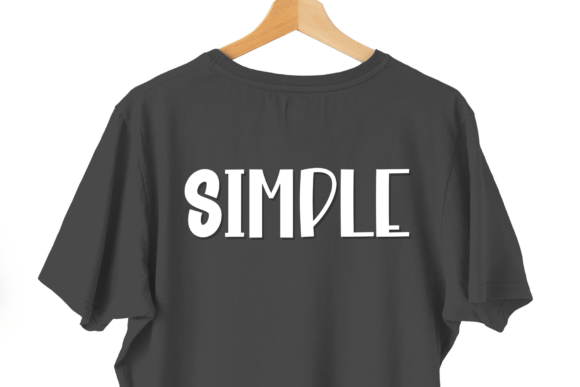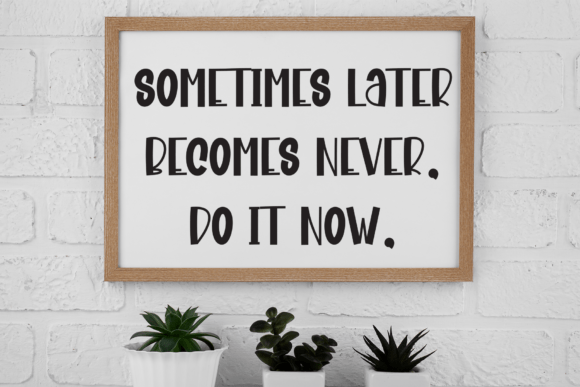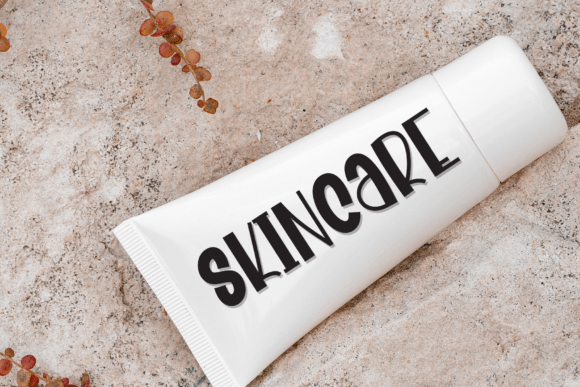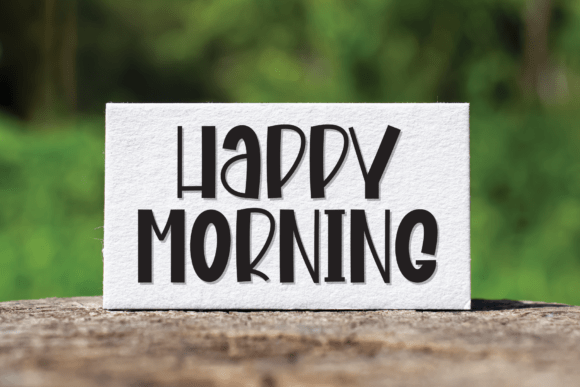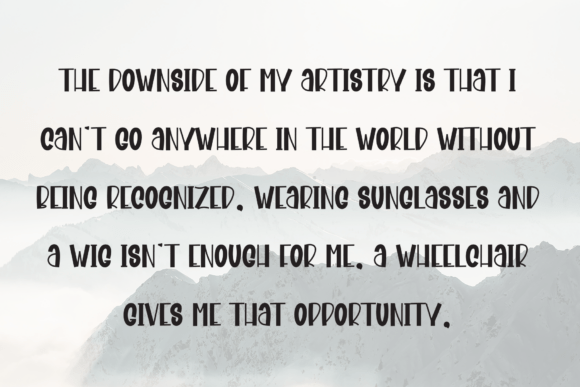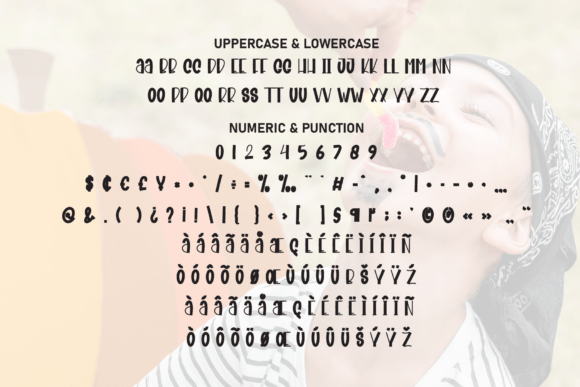
Introducing Funny October Font: The Perfect Blend of Modern Simplicity and Playful Charm
Are you tired of using the same old fonts for your design projects? Look no further! Funny October Font is here to shake things up with its unique blend of modern simplicity and playful charm. This casual display font is perfect for designers and crafters looking to add a fresh and friendly touch to their work.
What Makes Funny October Font So Special?
Funny October Font boasts clean shapes, soft edges, and well-balanced letterforms that capture the essence of relaxed design while maintaining clarity and style. Its modern simplicity makes it an ideal choice for a wide range of projects, from posters and branding to packaging and social media graphics.
Key Features of Funny October Font
- Clean Shapes: The font features clean and simple shapes that give it a modern and sleek look.
- Soft Edges: The soft edges of the font add a touch of playfulness and approachability.
- Well-Balanced Letterforms: The letterforms are well-balanced, making the font easy to read and understand.
- Versatile Character: The font has a versatile character that can be used for a wide range of projects.
- Eye-Catching Appeal: The font has an eye-catching appeal that is sure to grab the attention of your audience.
Why Choose Funny October Font?
There are many reasons why Funny October Font is the perfect choice for your design projects. Here are a few:
- Readability: The font is highly readable, making it perfect for use in a variety of contexts.
- Personality: The font has a unique personality that sets it apart from other fonts.
- Flexibility: The font can be used for a wide range of projects, from posters and branding to packaging and social media graphics.
In conclusion, Funny October Font is a unique and versatile font that is perfect for designers and crafters looking to add a fresh and friendly touch to their work. With its modern simplicity, playful charm, and eye-catching appeal, it’s sure to become a favorite in your font collection.